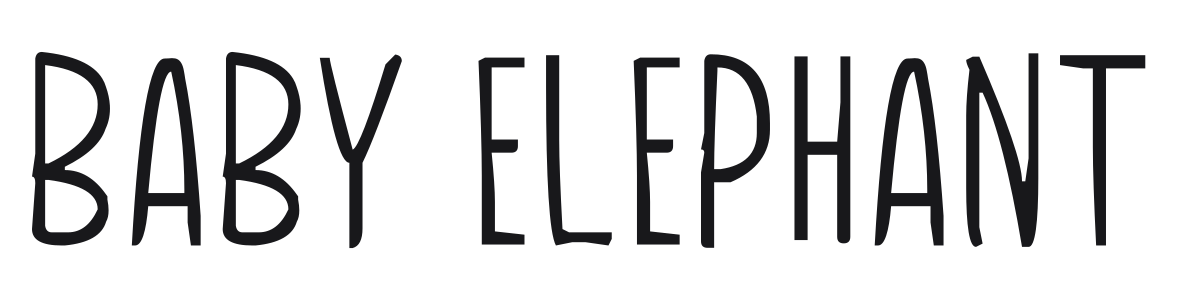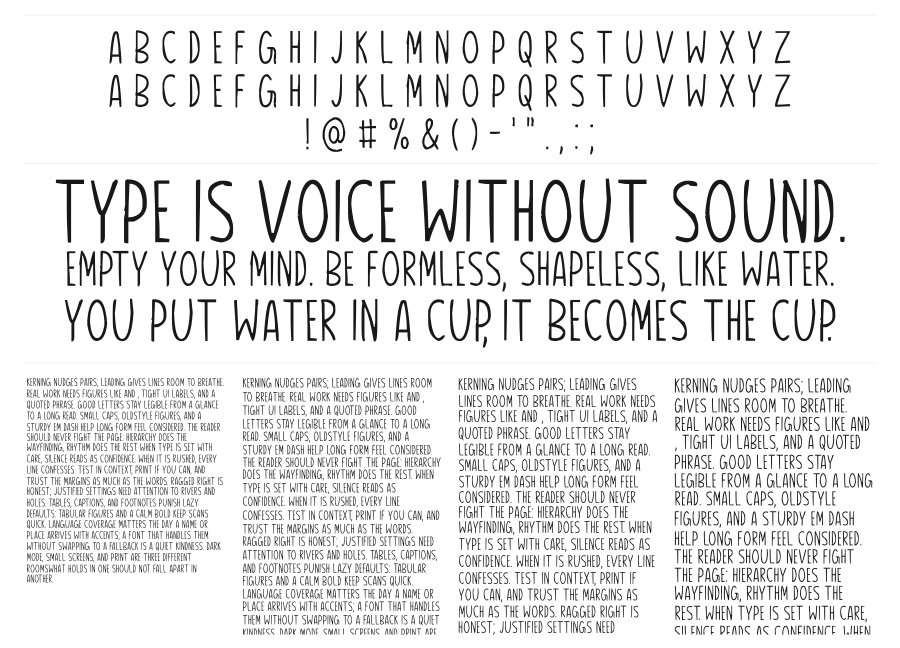
Baby Elephant
Baby Elephant is a hand-drawn display sans with tall, narrow characters and a deliberately wobbly, imperfect construction. Each letter carries small irregularities in angle and proportion that give it an approachable, childlike warmth without feeling sloppy. It works well on packaging, children's media, and anywhere a friendly, handmade quality is needed.